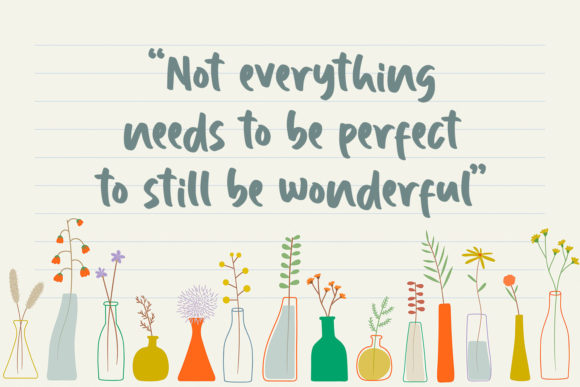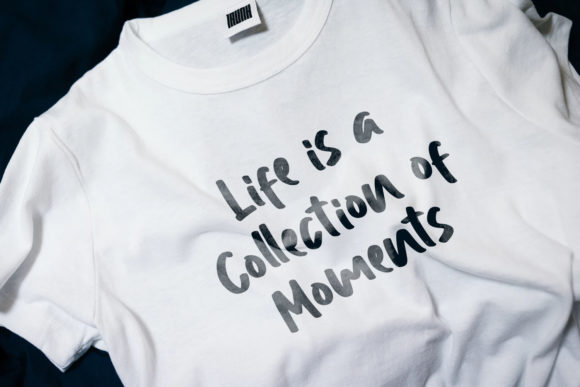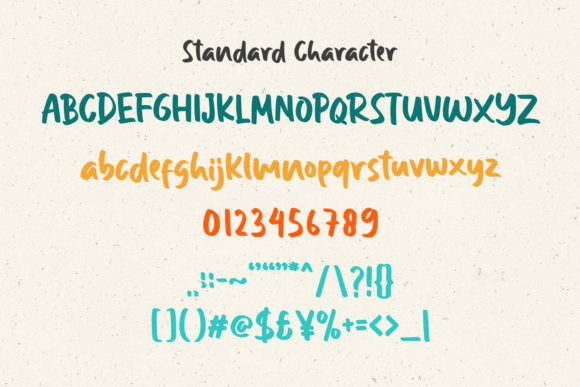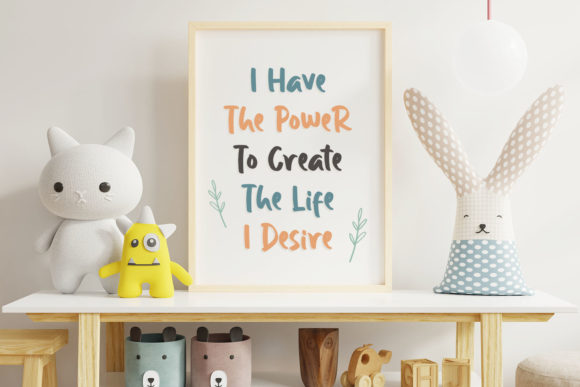
Introducing Daily Keisha Font: The Ultimate Display Font for Your Creative Projects
Are you a designer, crafter, or DIY enthusiast looking for a font that can add a touch of personality to your projects? Look no further than the Daily Keisha font! This adorable display font is sure to brighten up any design, and its whimsical and quirky vibe makes it perfect for a wide range of creative applications.
What Makes Daily Keisha Font So Special?
Daily Keisha is a cute and charming display font that is designed to make your designs stand out. Its unique and playful style is perfect for adding a touch of whimsy to your projects, whether you’re working on a graphic design, crafting a handmade card, or creating a DIY sign. With its bold and eye-catching letters, Daily Keisha font is sure to grab attention and leave a lasting impression.
Key Features of Daily Keisha Font
- Cute and charming design: Daily Keisha font features a unique and playful design that is sure to add a touch of personality to your projects.
- Whimsical and quirky vibe: This font has a fun and carefree vibe that makes it perfect for designers and crafters who want to add a bit of whimsy to their work.
- Bold and eye-catching letters: The bold and eye-catching letters of Daily Keisha font make it perfect for headlines, titles, and other design elements that need to grab attention.
- Easy to read: Despite its playful design, Daily Keisha font is easy to read, making it perfect for use in a wide range of applications, from signage to social media graphics.
How to Use Daily Keisha Font in Your Projects
Daily Keisha font is a versatile display font that can be used in a wide range of creative projects. Here are just a few ideas to get you started:
- Graphic design: Use Daily Keisha font to add a touch of personality to your graphic designs, from brochures and flyers to posters and social media graphics.
- Handmade cards and gifts: Add a personal touch to your handmade cards and gifts with Daily Keisha font, perfect for special occasions like birthdays, weddings, and holidays.
- DIY signs and decor: Use Daily Keisha font to create eye-catching signs and decor for your home or office, from welcome signs to inspirational quotes.
- Digital products: Daily Keisha font is also perfect for use in digital products, such as printable art, planners, and organizers.
Why Choose Daily Keisha Font?
With so many fonts to choose from, why should you choose Daily Keisha font for your projects? Here are just a few reasons:
- Unique and playful design: Daily Keisha font features a unique and playful design that is sure to set your projects apart from the crowd.
- High-quality design: This font is designed to high-quality standards, ensuring that it looks great in any application.
If you’re looking for a font that can add a touch of personality to your projects, look no further than Daily Keisha font. This cute and charming display font is perfect for designers, crafters, and DIY enthusiasts who want to add a bit of whimsy to their work. With its unique and playful design, bold and eye-catching letters, and ease of use, Daily Keisha font is the perfect choice for a wide range of creative applications.